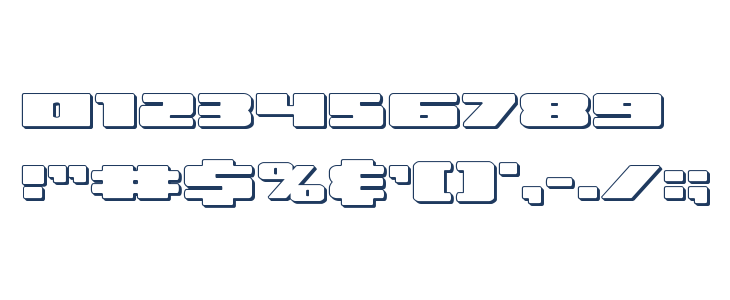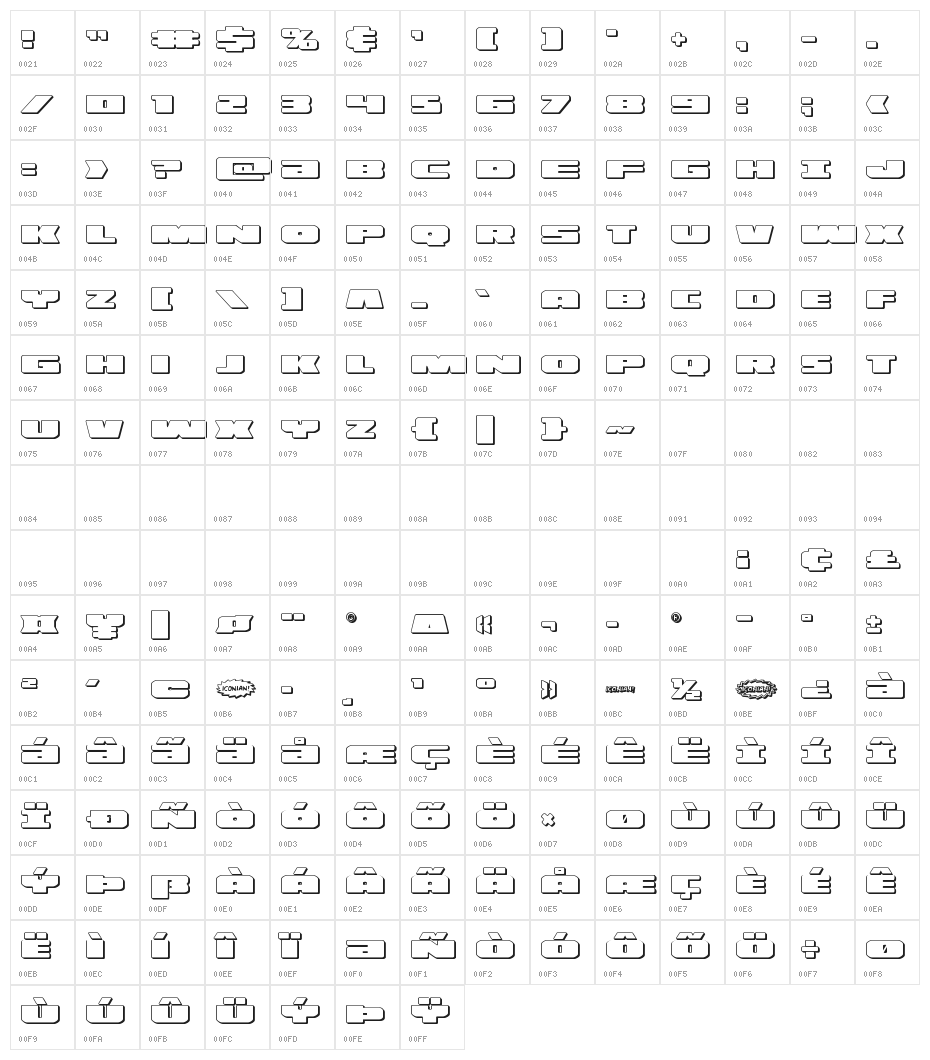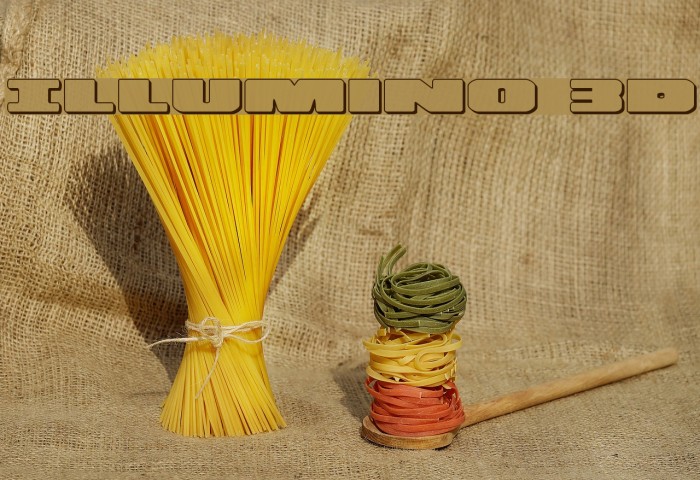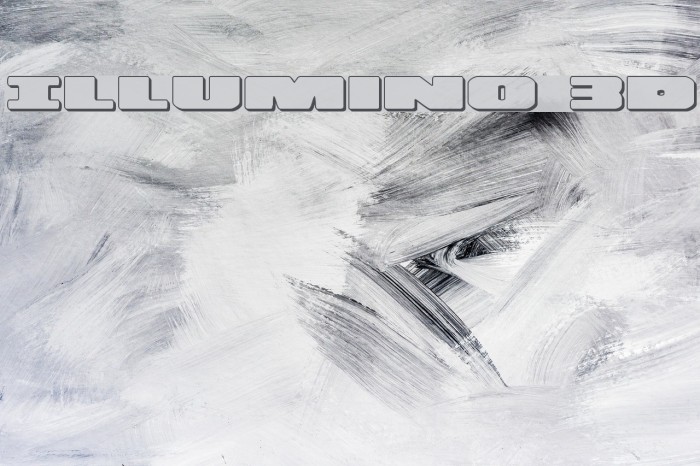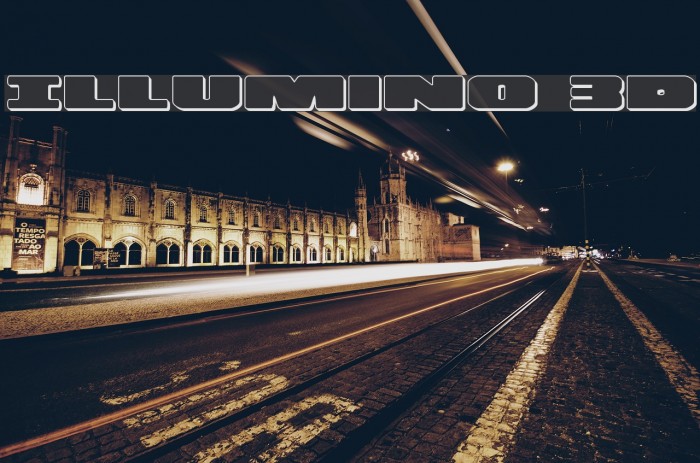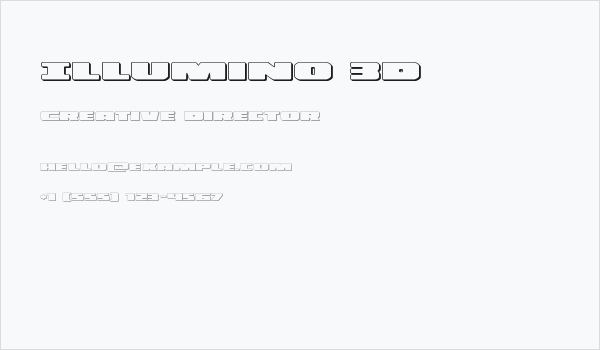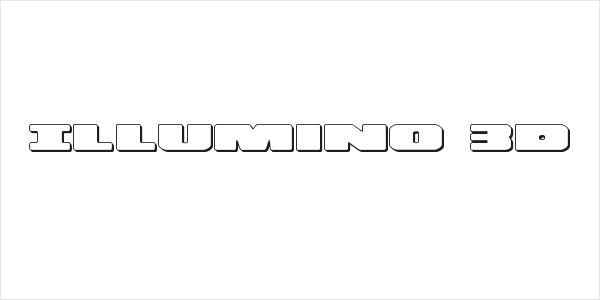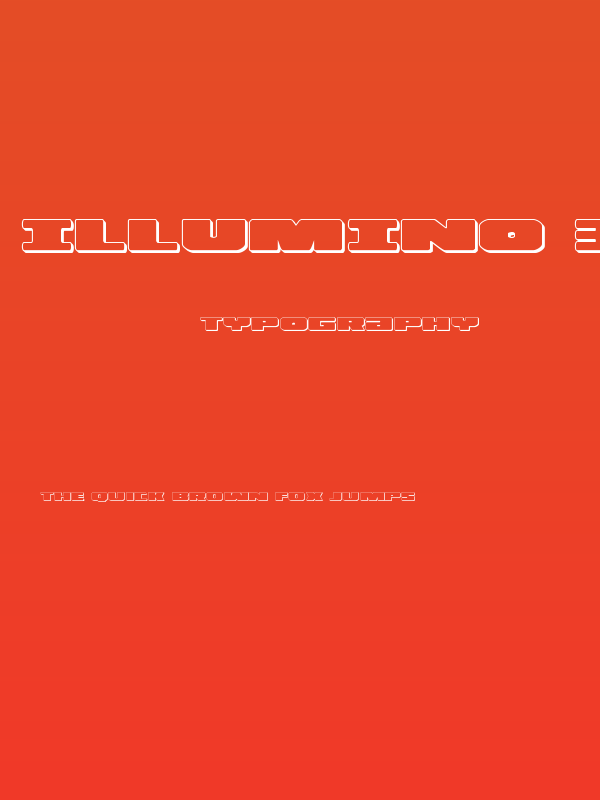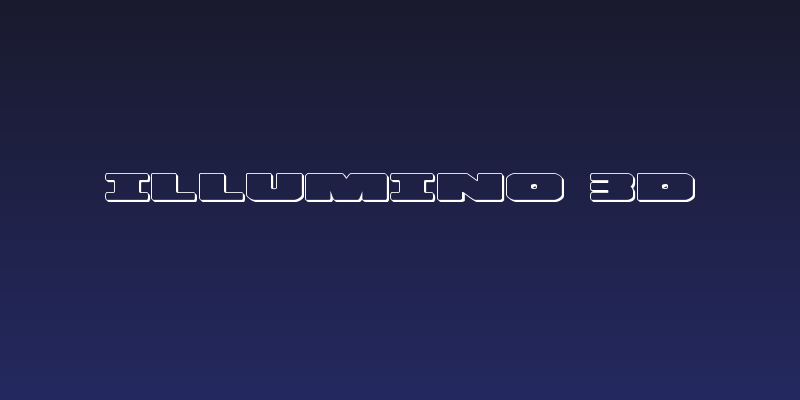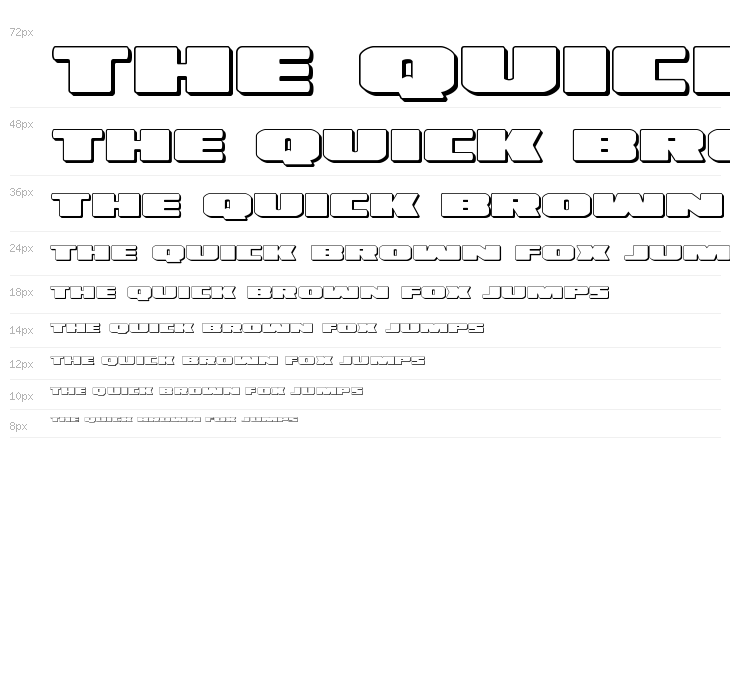
Illumino 3D Font
Illumino 3D Description
This font features a bold, three-dimensional appearance with a futuristic and geometric design. The characters are blocky and robust, with a distinct outline that enhances their 3D effect. Each letter and number is crafted with precision, giving a sense of depth and solidity. The font's style is reminiscent of digital or sci-fi themes, making it ideal for projects that require a modern and technological feel. The uppercase and lowercase letters maintain a consistent style, ensuring uniformity across different text elements. The special characters are designed to match the overall aesthetic, providing a cohesive look.
| Proposed Projects | Ideal for video game titles, tech branding, sci-fi posters, and digital interfaces. |